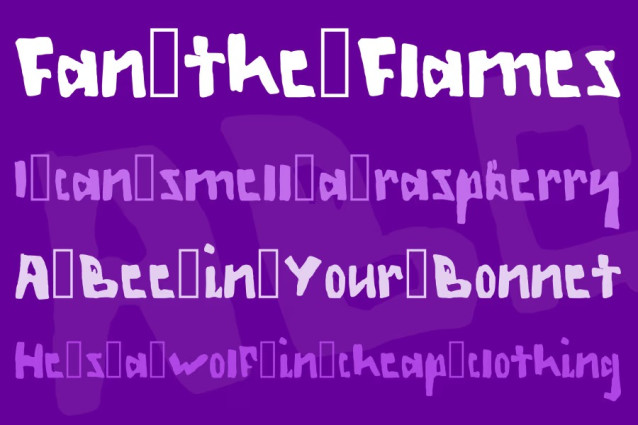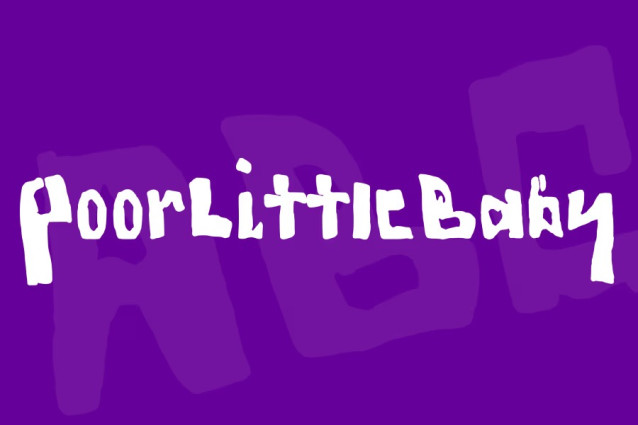
PoorLittleBaby Font, perfectly fit for branding, logo, wedding things, greeting cards, fashion, lookbook, marketing promotion, anytime you want to look fancy elegant but still casual.
PoorLittleBaby Font